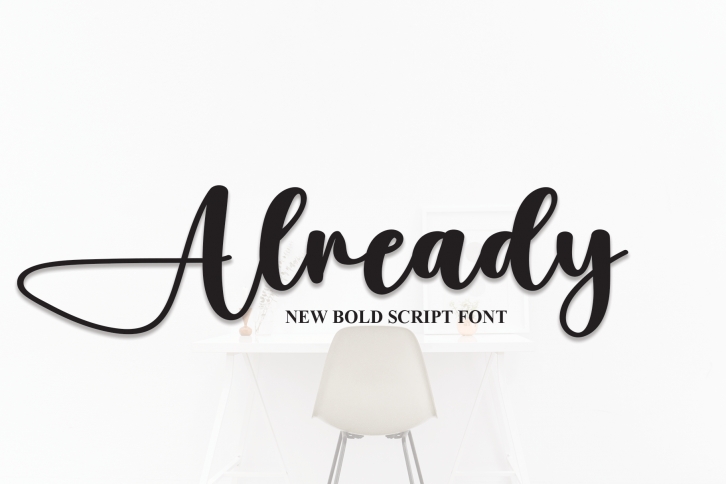
Already is a lovely handwritten font perfect for wall displays, wedding invitations, social media posts, logos, advertisements, product packaging, product designs, labels, photography, watermarks, invitations, stationery, and any project that requires a handwritten taste!